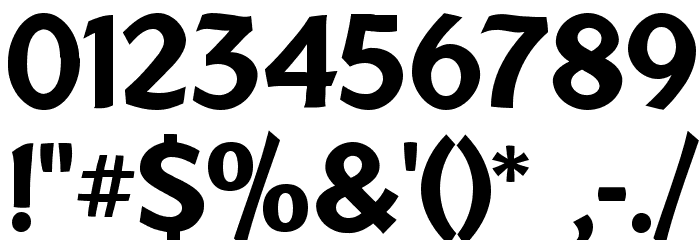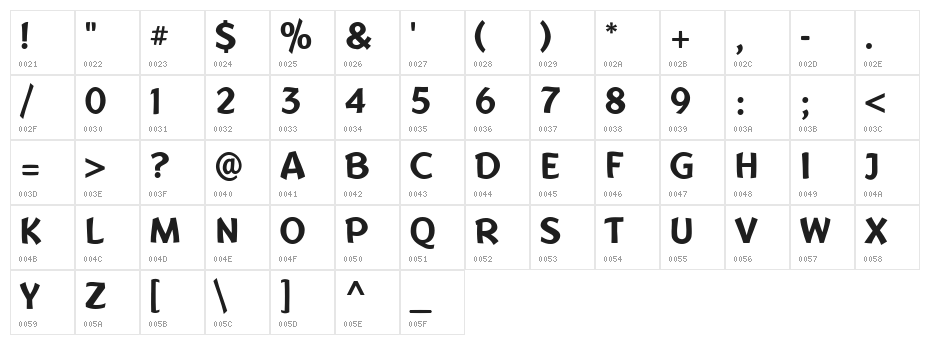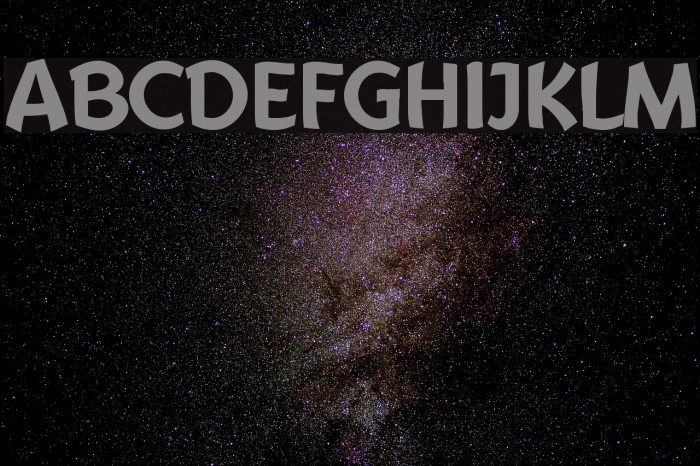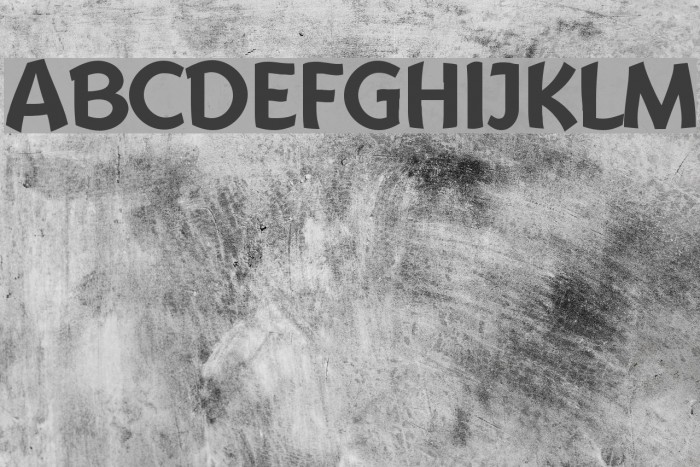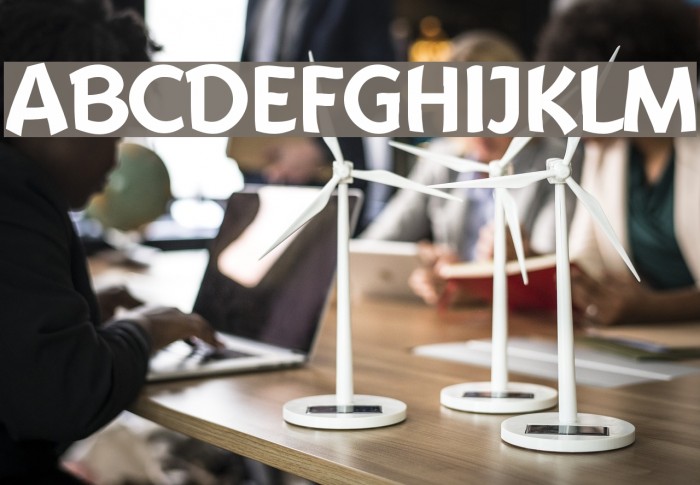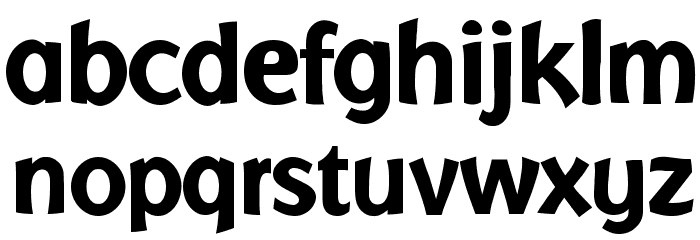
ResPublica Font
ResPublica Description
This font features a bold and dynamic style with a slightly playful character. The uppercase letters are robust and have a strong presence, while the lowercase letters maintain a consistent flow with rounded edges. The numerals are clear and legible, designed to stand out with their bold strokes. Special characters are well-integrated, maintaining the overall aesthetic of the font. The font's design is versatile, suitable for a variety of creative projects that require a touch of boldness and modernity. Its unique style makes it ideal for attention-grabbing headlines and impactful designs.
Proposed ProjectsPerfect for branding, advertising, posters, and any project needing a bold statement.